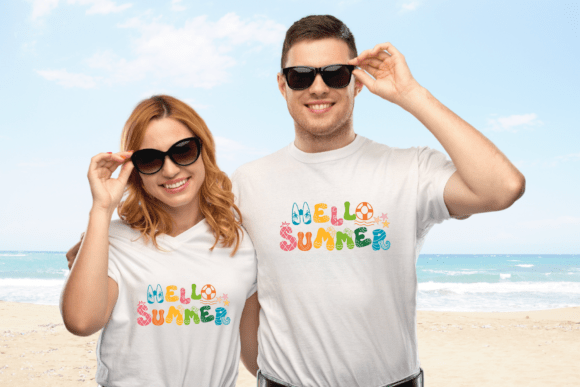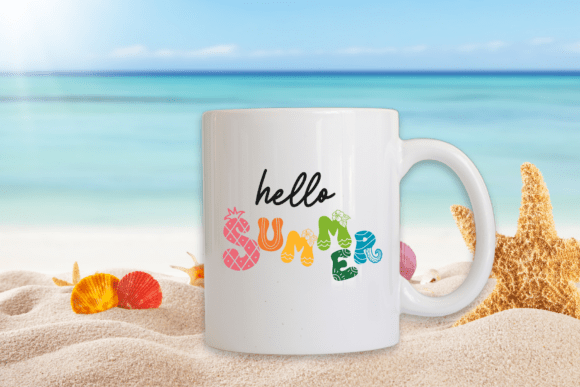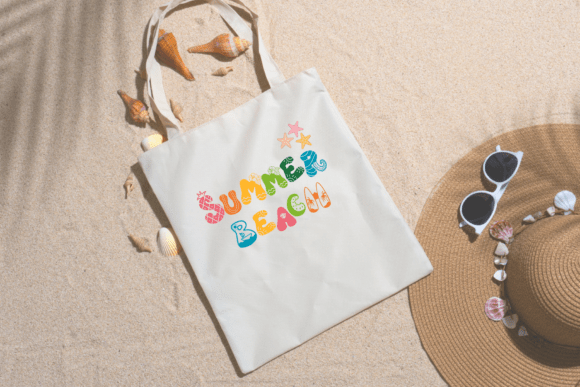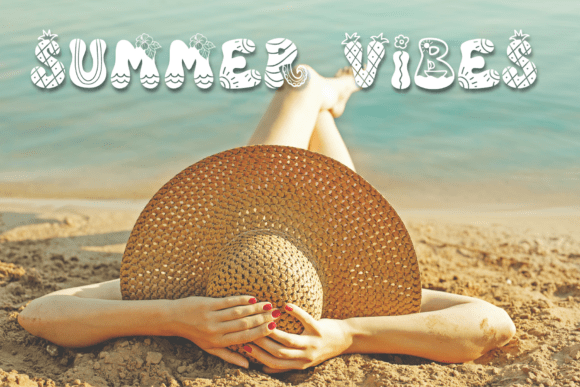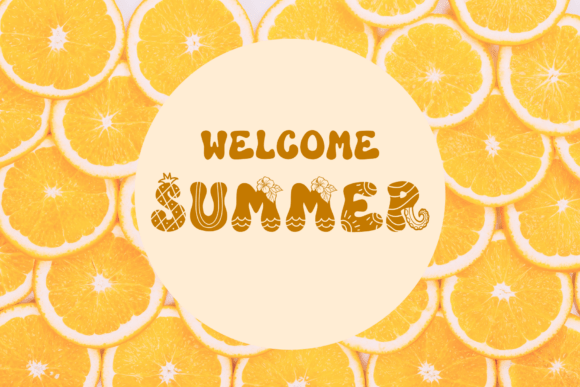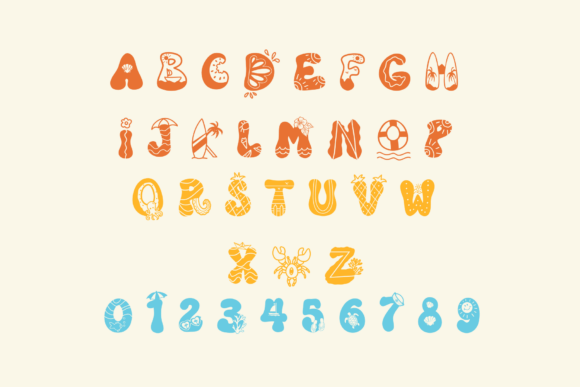
Welcome the Warmth of Hello Summer Font
As the sun shines bright and the days get longer, our creativity often bursts forth in vibrant hues and playful designs. There’s something about the carefree spirit of summer that inspires us to let our imagination run wild, doesn’t it? Whether you’re planning a backyard barbecue or simply looking for a new way to express yourself, the perfect font can be just the thing to set your creative juices flowing.
That’s where the Hello Summer Font comes in – a delightful Decorative font designed to add a touch of whimsy and charm to your projects. Perfect for taking notes, writing a diary, or making greeting cards, this font is also versatile enough to be used for a wide range of designs, from banners and social media posts to mugs and t-shirts.
- Unique Characteristics: Hello Summer Font features a unique, hand-drawn design with a mix of bold and playful lines, making it perfect for summer-themed projects, beach-inspired designs, and outdoor-related graphics.
Hello Summer Font Review
I recently had the chance to dive into the “Hello Summer Font” and I must say, it’s a unique and refreshing take on a classic font style.
Here are some aspects that I think work well: ✨
- Warm and inviting feel: The font exudes a sense of warmth and friendliness, making it perfect for summer-themed projects or branding.
- Perfect for headings: The font is bold and eye-catching, making it ideal for headings and titles.
- Good legibility: The font is easy to read, even at smaller sizes, which is a must for any font.
- Limited font weight options: While the font is available in several weights, the options are limited, which may not be ideal for projects that require a wide range of font weights.
- No italics or bold italic: Unfortunately, the font does not include italics or bold italic versions, which may be a drawback for some designers.
Overall, I think the “Hello Summer Font” is a solid choice for designers looking for a unique and inviting font. While it may have some limitations, it’s a great addition to any design toolkit.
For best results, use the “Hello Summer Font” as a title or heading to add a touch of summer flair to your design.
The “Hello Summer Font” is perfect for:
- Summer-themed invitations and party decorations.
- Beach-themed social media graphics and posts.